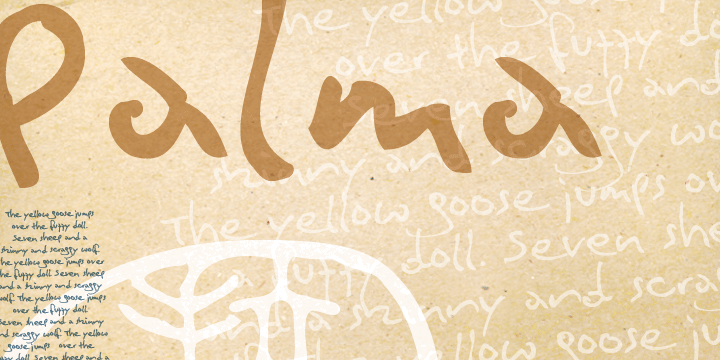
Handwriting fonts have a great disadvantage when it comes to double letters: they look fake.
With Palma come loads of ligatures for double letters to make your design look authentic (as shown on the image above).